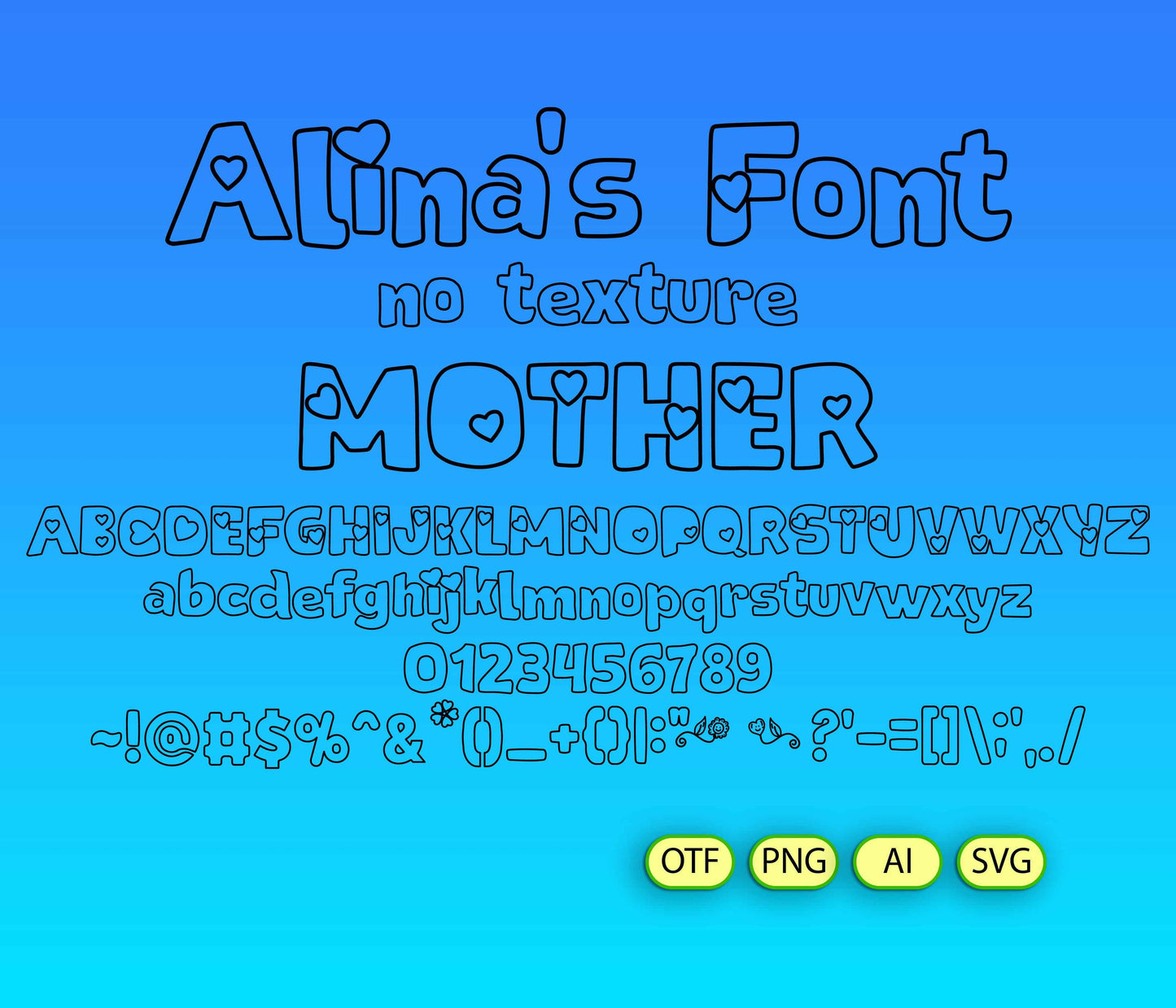
Motherly Celebration Font
Step into the world of heartfelt appreciation with our Motherly Celebration font, capturing the essence of maternal warmth and affection. Perfect for card makers, gift designers, event planners, and digital creators, this clean-lined font brings the tender, elegant spirit of motherhood to your projects. Create touching greetings, personalized gifts, or digital content with the loving energy of this special day.
Our Motherly Celebration font features smooth, elegant lines and graceful characters in a clean style that reflects the beauty of maternal bonds. Ideal for:
Our font pays tribute to the beauty of motherhood, empowering your designs with its refined and elegant spirit. Whether crafting personal messages, designing celebratory merchandise, or adding a touching element to special projects, this clean-lined font communicates the tender essence of maternal love with professional precision. Ready to create something special for mom? This non-textured font is your key to polished, impactful design.